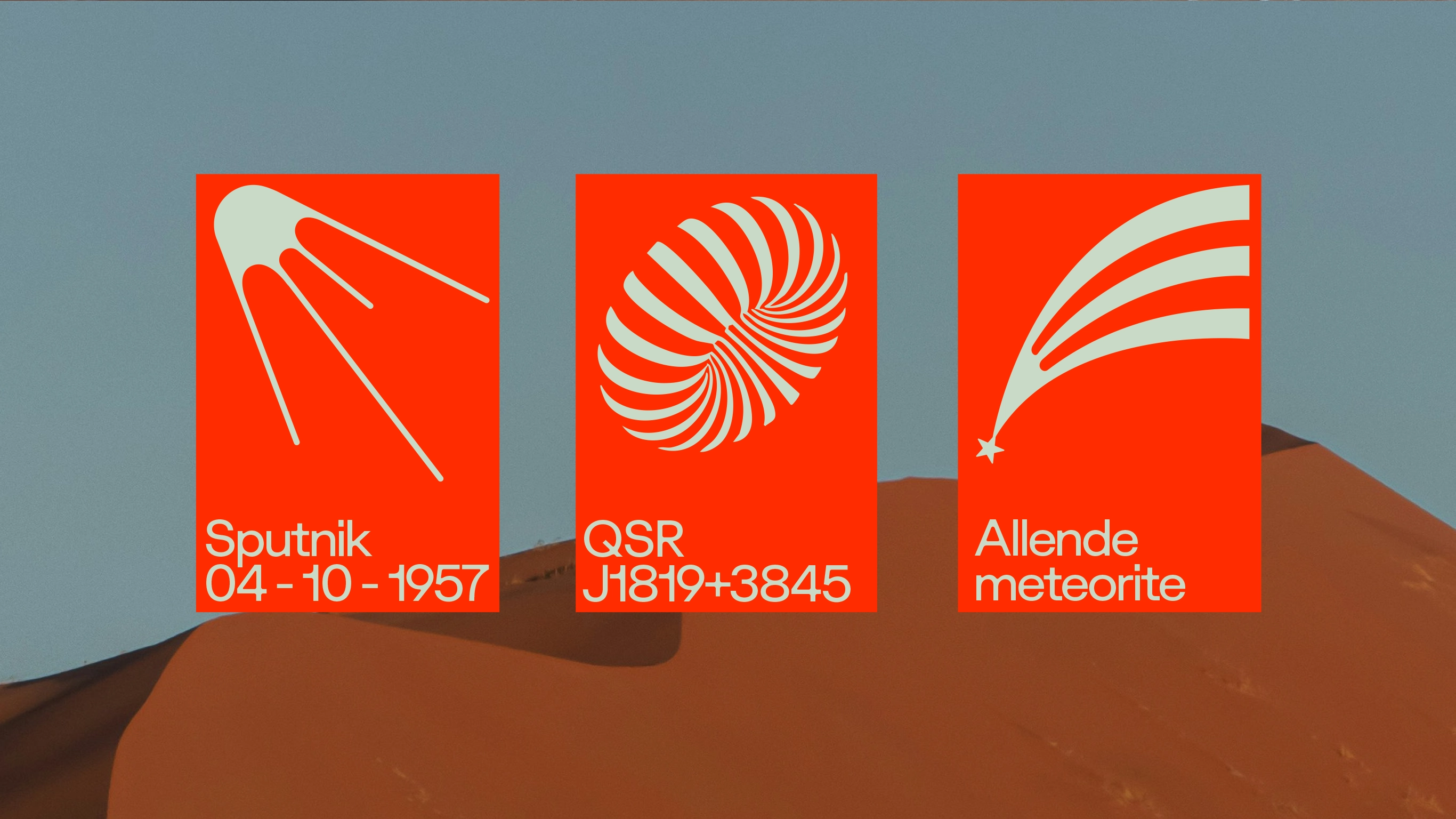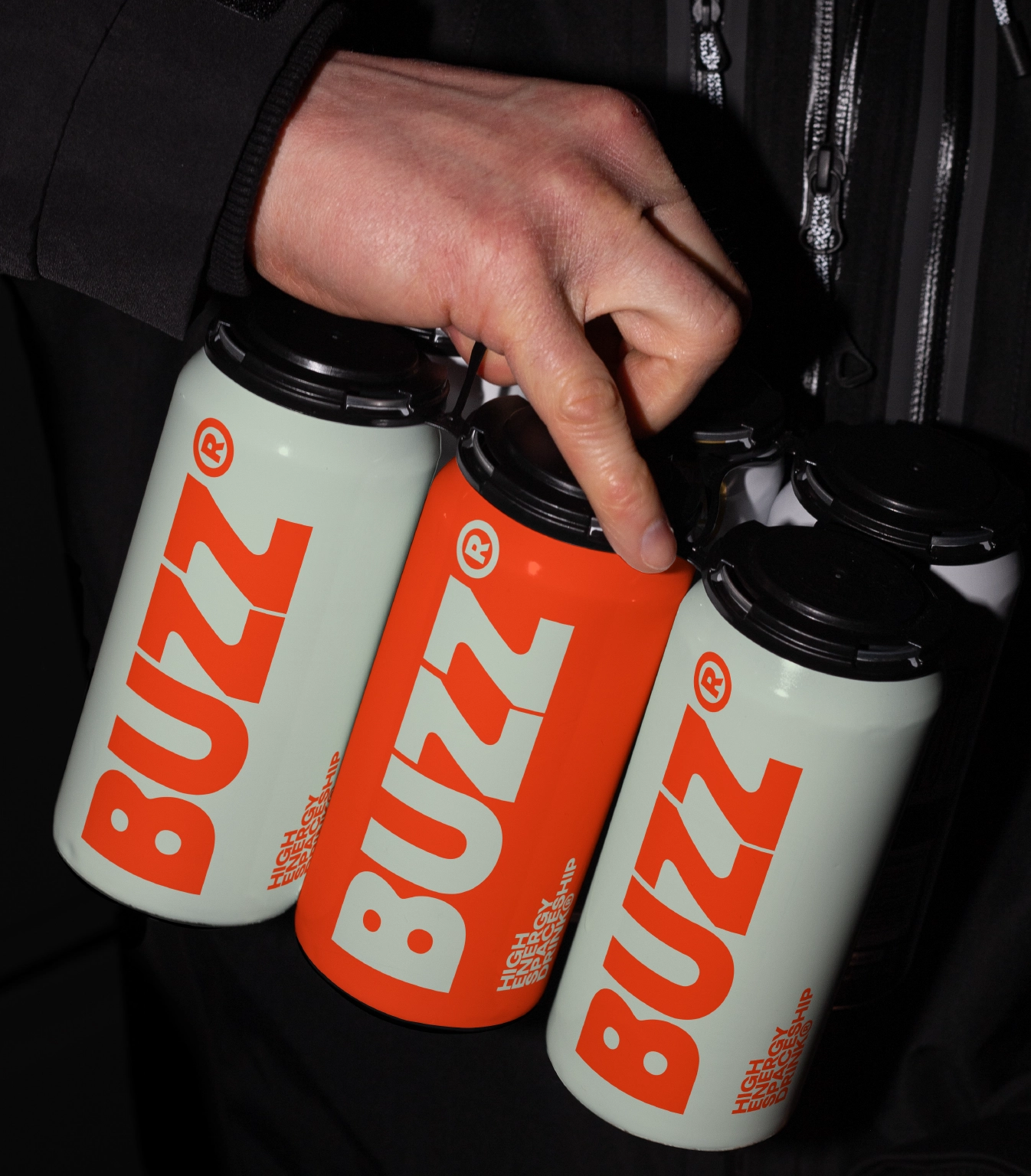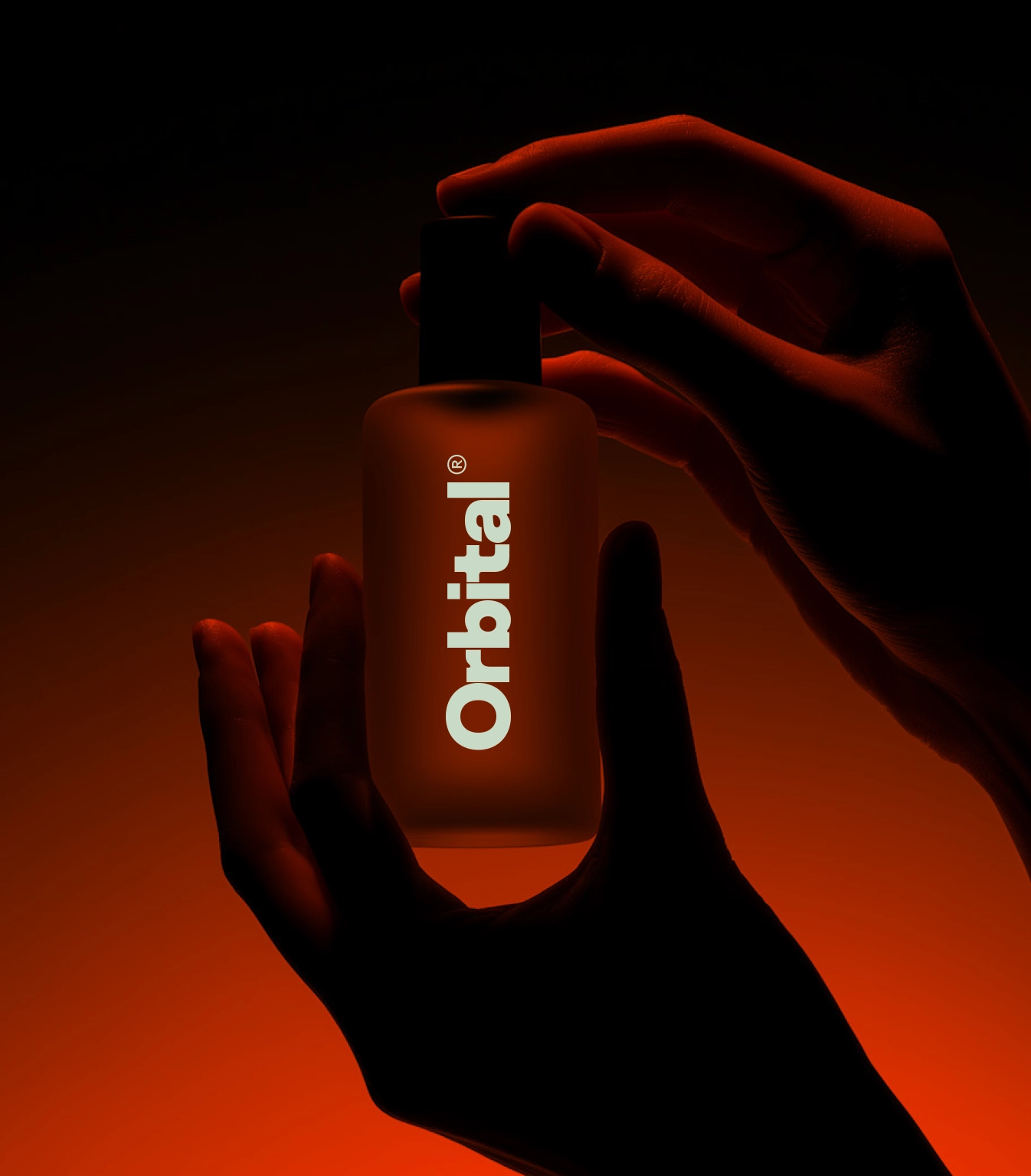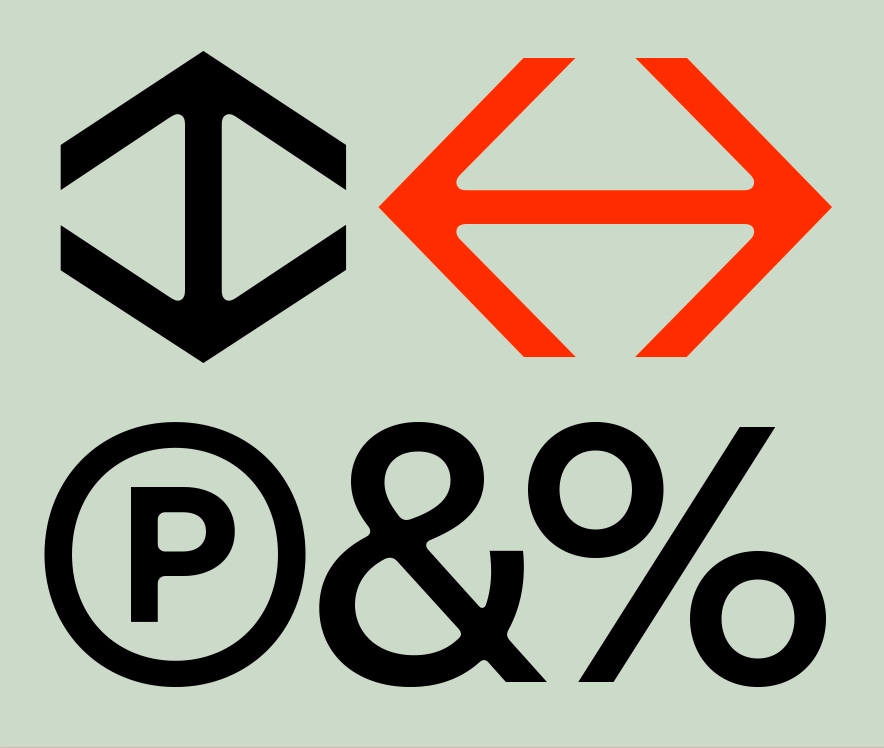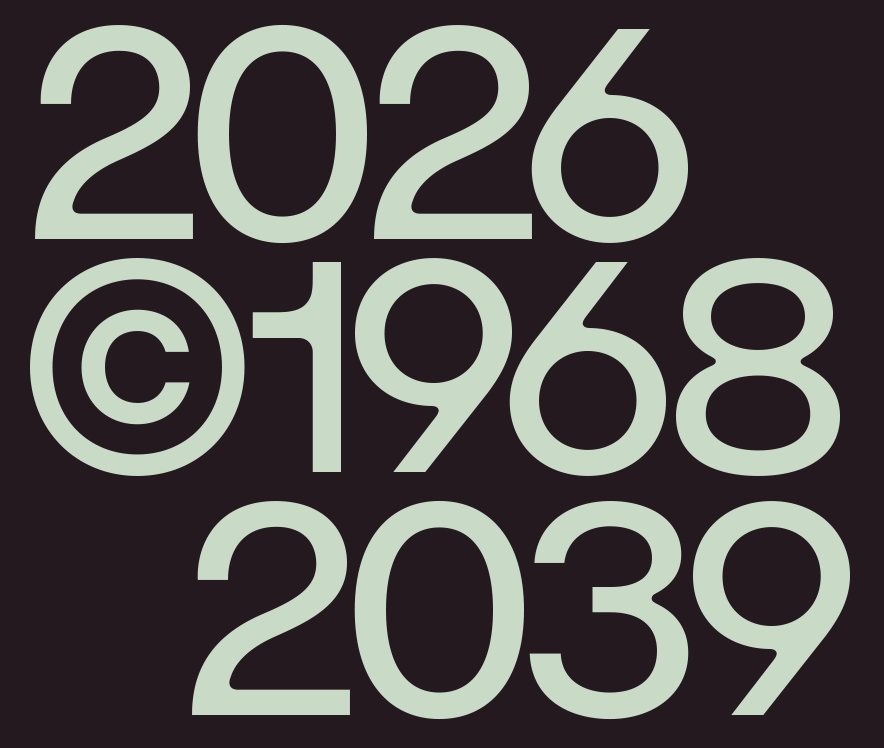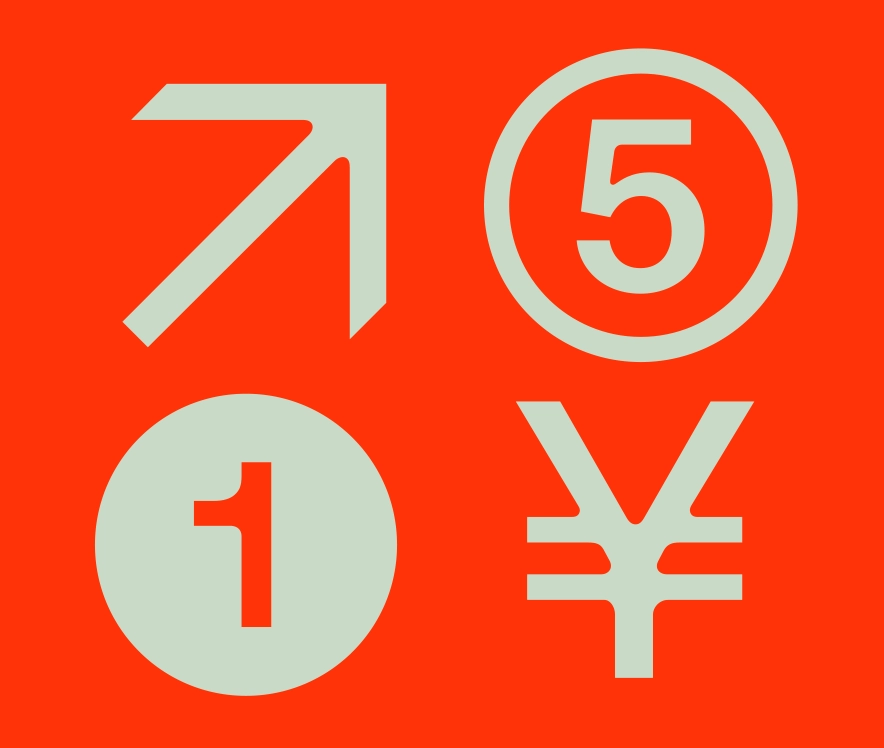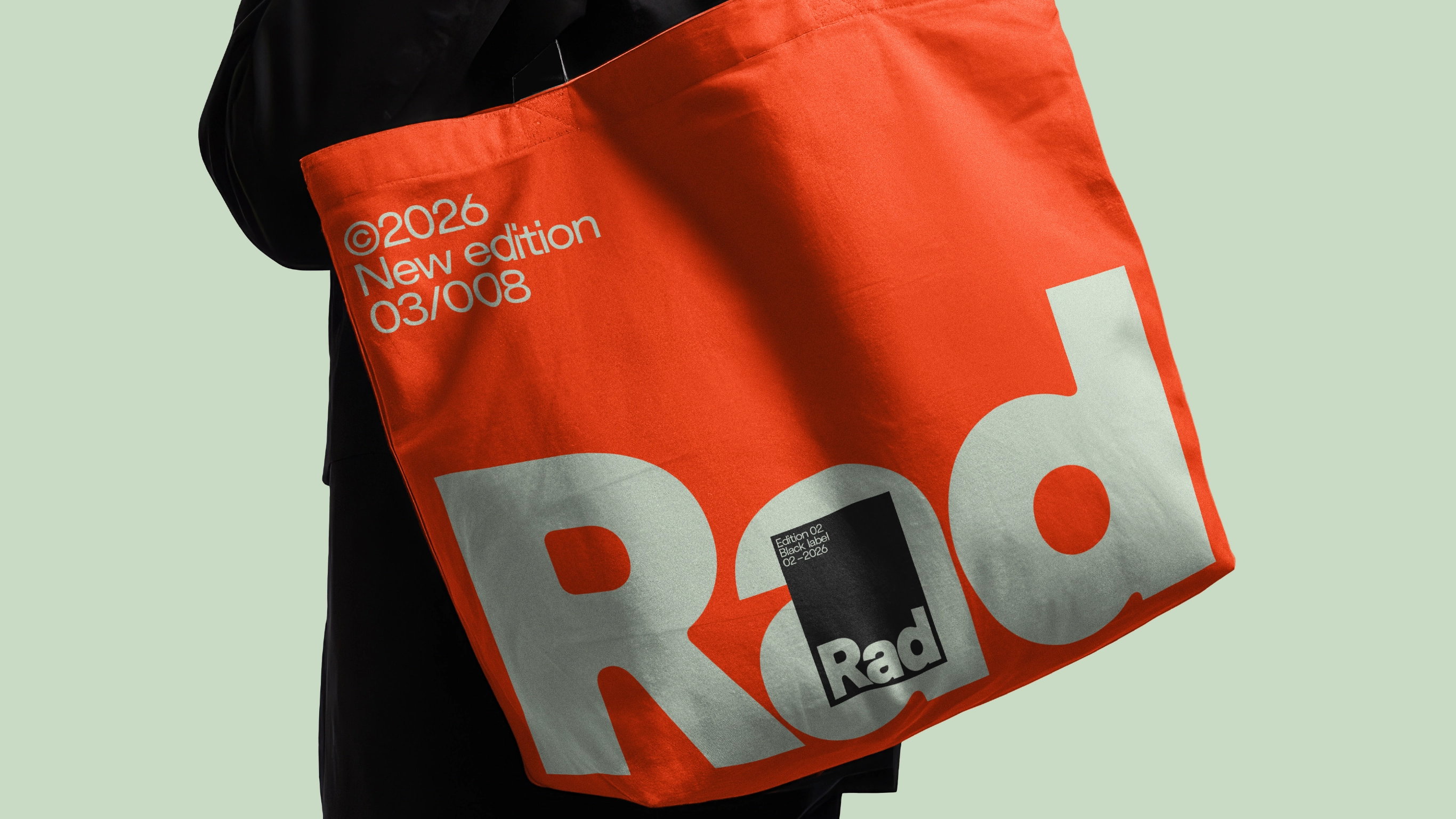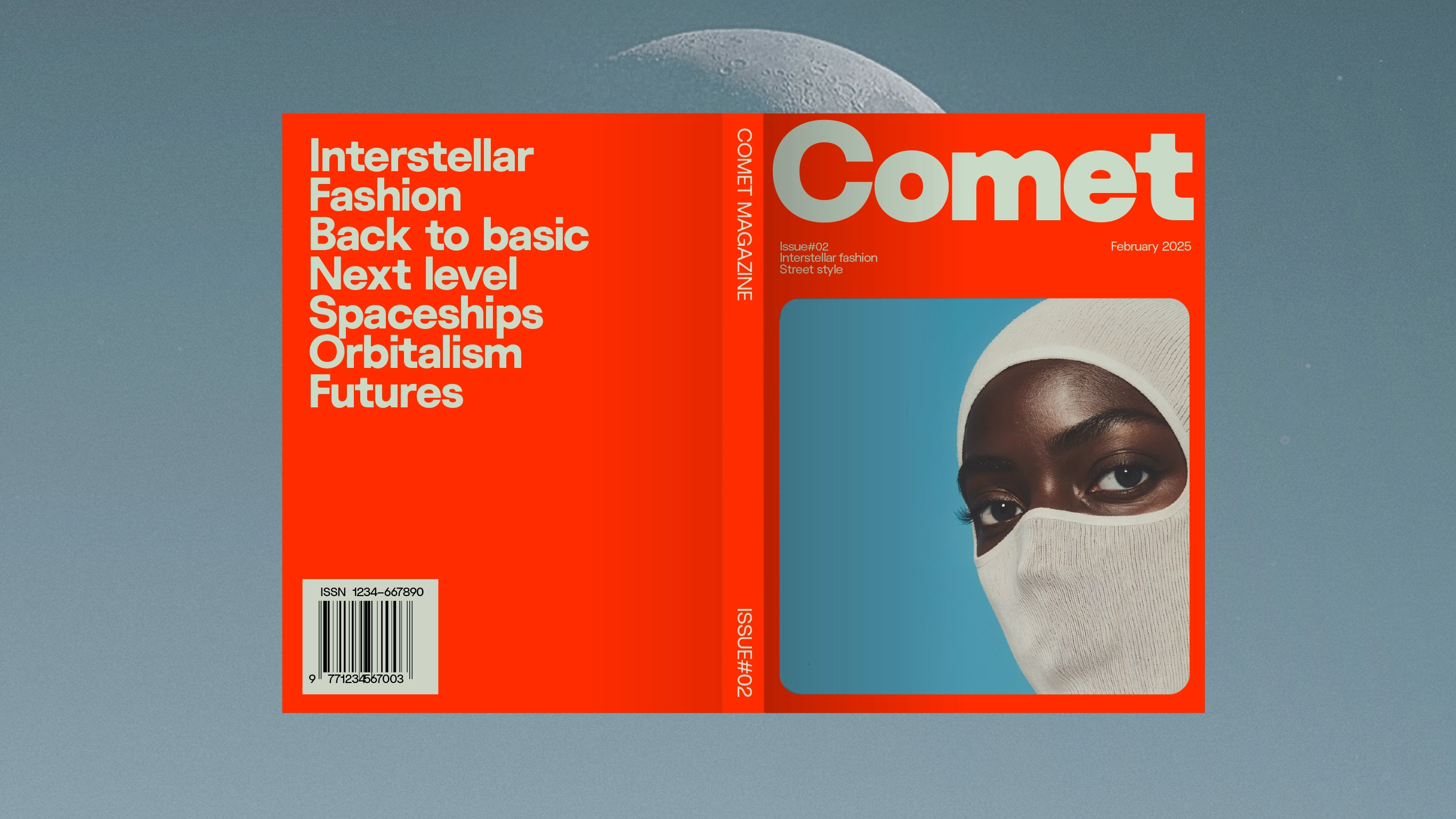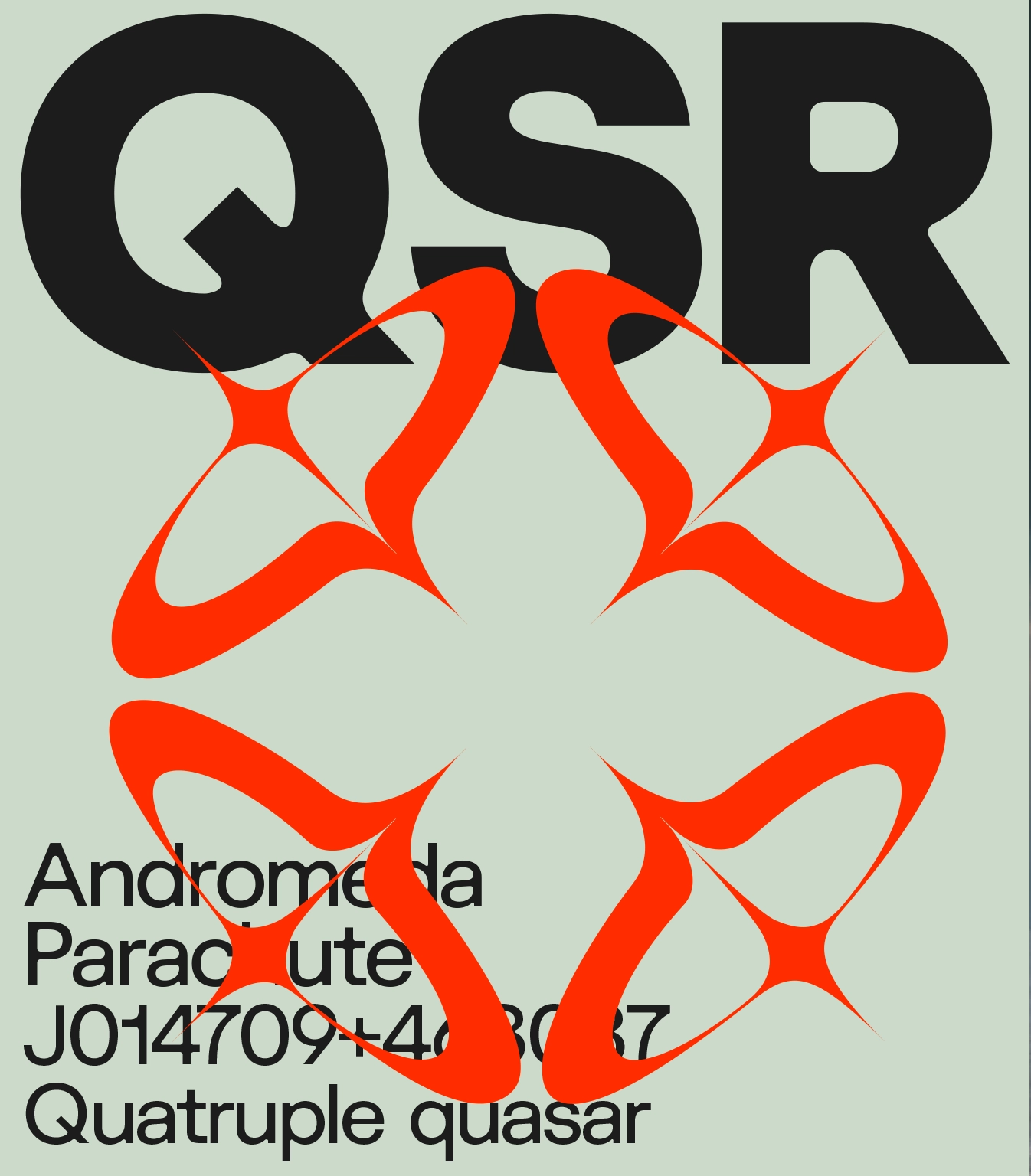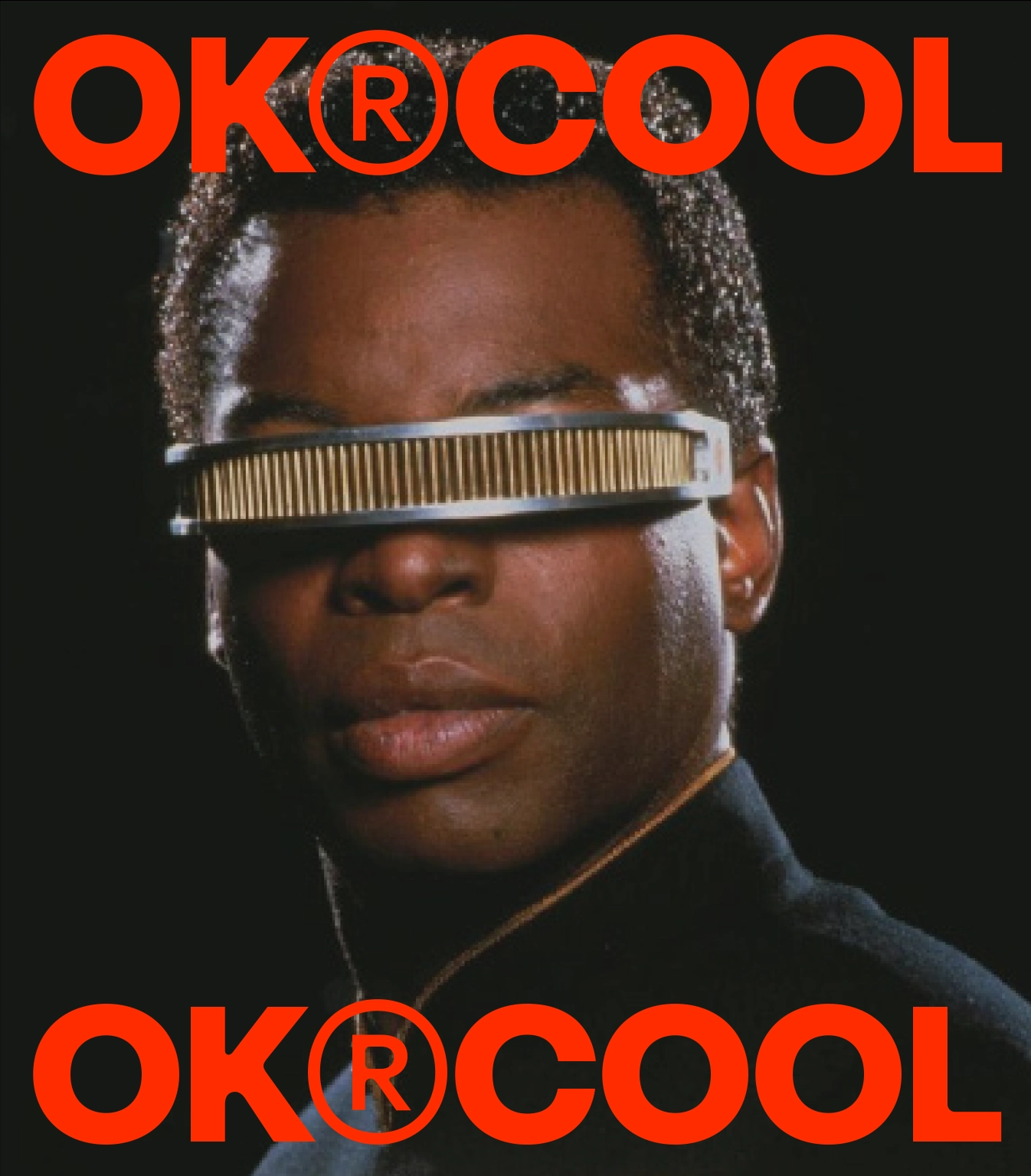
Futurist
This is a dynamic sans serif type family designed for today. Its construction balances soft curves with engineered precision, creating a rhythm that feels both fluid and exact. With its refined geometry and human detail, Futurist adapts seamlessly from headline to interface — a forward-looking voice for brands that live where design and innovation meet.